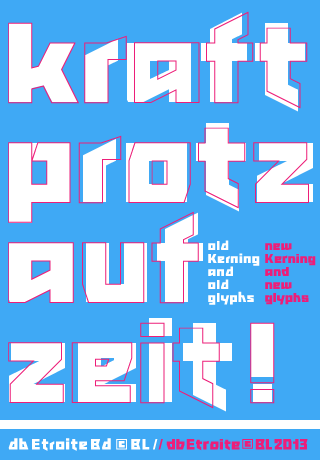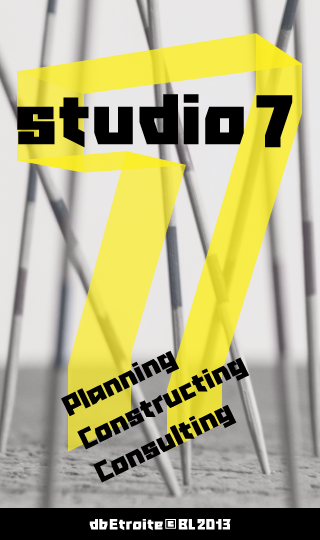
db Etroite
Clone of db Etroite Bd with many changes. Sans Serif, Decorative, crude, square, Heads, Poster, db
Another legendary design by a legendary Fontstructor. 10/10 and a favorite. I'm glad the Fontstructor's working again.
This is a GREAT WORK, made by a GREAT FONTSTRUCTOR! Where's the Top Pick?
A very effective sample to show the differences. Great improvements. 10/10
Good improvements, now this awesome font is even better!
Your sample is a work of art.
Thanks for your nice comments. Sometimes it pays to treat the things a second look : )
I love how you make your design process transparent. It should be like this more often, because that's the best way to learn from your fellow fontstructors.
Goes without saying: Awesome typeface!
Chapeau!
A great improvement to the original. Will you posibly allow downloads for this one? 10/10
I've been months trying to do something like this. This is one of my favourite fontstructions. Great work!